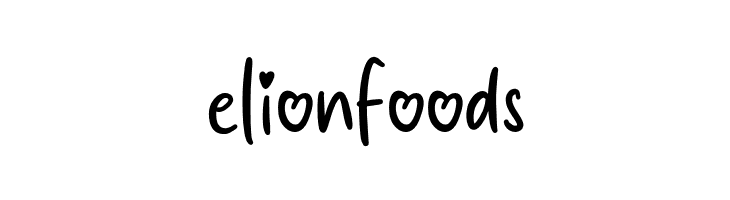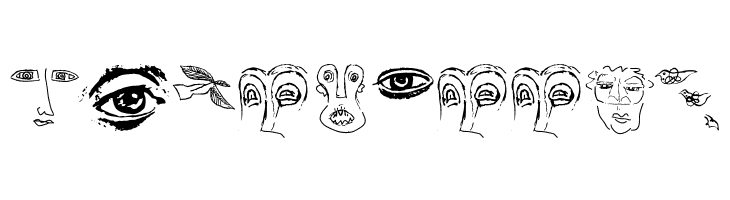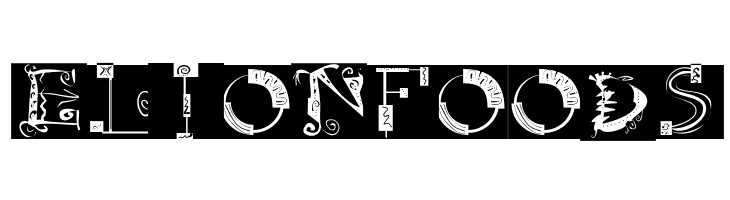
A bold, geometric font with a futuristic and modern design.
An elegant and flowing script font with intricate loops and swashes.
A modern, outlined font with geometric and futuristic elements.
An elegant and flowing script font with ornate uppercase and smooth lowercase letters.
A bold, vintage-inspired font with strong, angular serifs and uniform height.
A bold, slab serif font with a strong, modern presence.
A playful, casual handwritten font with irregular strokes and a natural flow.
A playful and whimsical script font with flowing, interconnected letters.
A playful, handwritten script font with flowing, interconnected strokes.
A playful and elegant script font with a flowing, cursive design.
An elegant, flowing script font with graceful curves and loops.
A playful, handwritten script with smooth, flowing lines and consistent stroke thickness.
A decorative font where each character is an ornate mask illustration.
A playful and elegant script font with a handwritten, cursive style.
A gothic, thorny font with intricate, sharp embellishments and dramatic flourishes.
A playful, handwritten font with a casual and dynamic style.
A sophisticated script font with flowing, cursive letterforms and elegant flourishes.
A flowing, cursive script font with elegant, sweeping curves.
A graceful script font with smooth, connected strokes and a handwritten appearance.
A classic and elegant script font with flowing, connected letterforms.
A playful, handwritten script font with bold, dynamic characters.
Cartoonish, illustrative font with each character formed by comic-style drawings.
A bold, distressed font with a vintage, grunge aesthetic.
A bold, expressive font with brush-like strokes and a raw, artistic feel.
A bold, contour-styled font with a modern, decorative flair.
A modern, geometric font with a double-line, hollow design.
An elegant script font with intricate swirls and flowing lines.
A whimsical, curly font with playful loops and flourishes.
A graceful and elegant script font with flowing, cursive letterforms.
A graceful, handwritten script font with elegant, flowing letters.